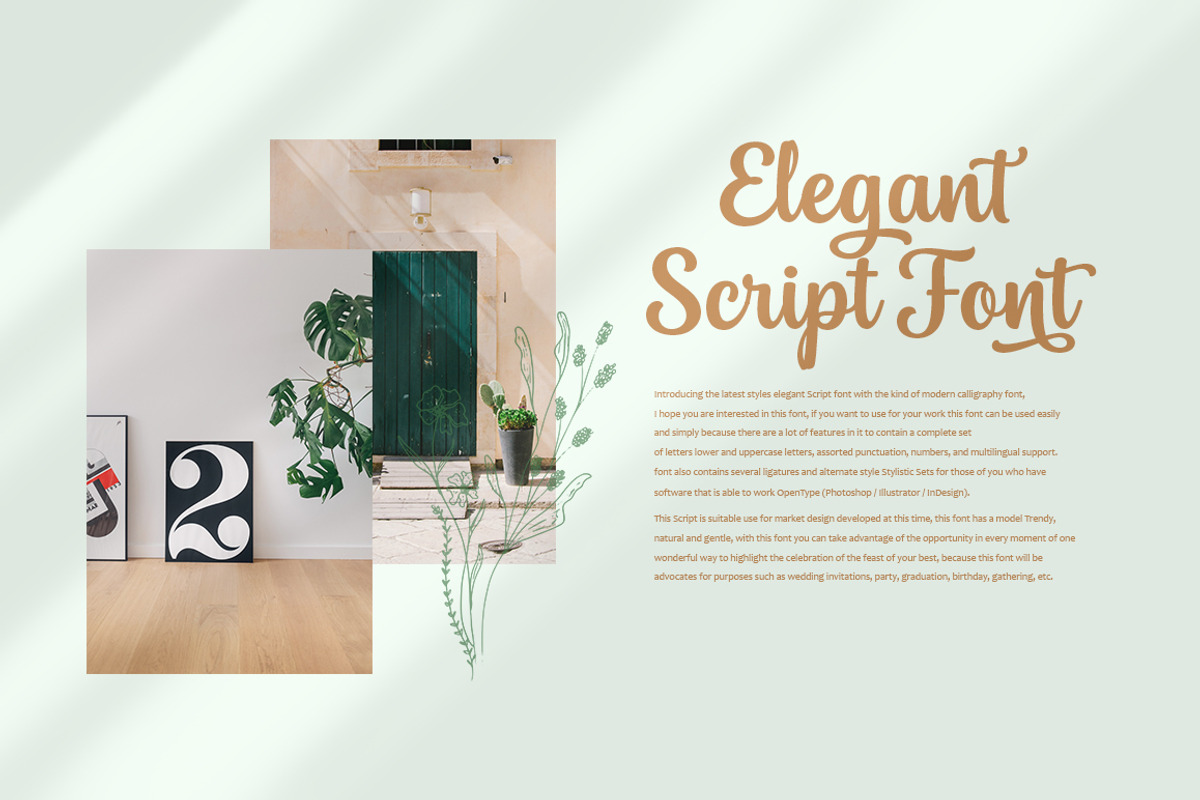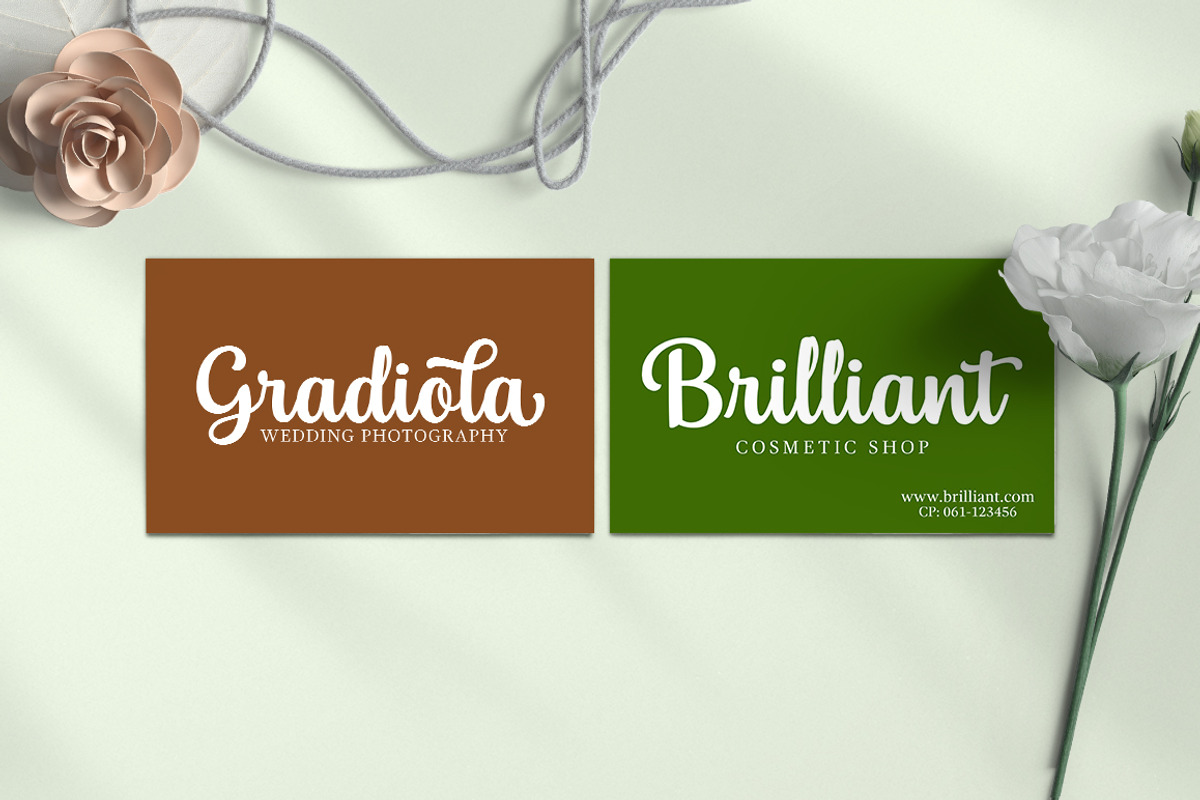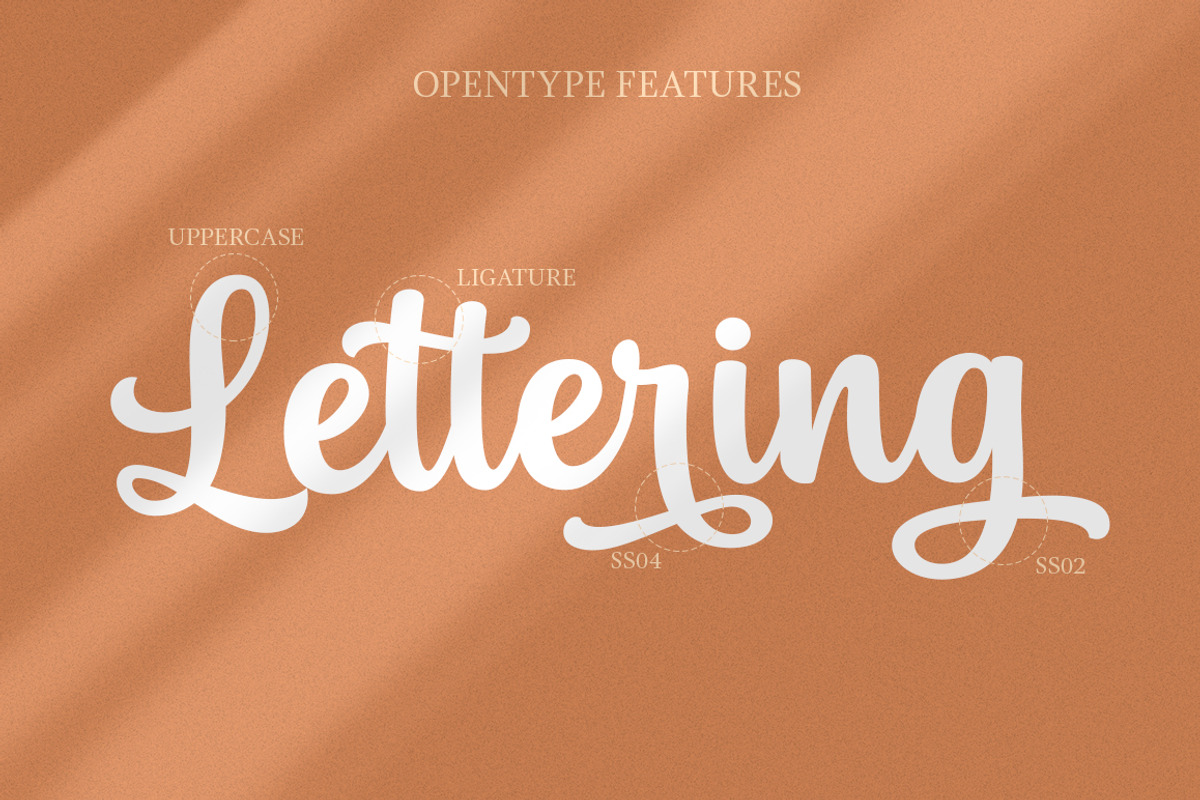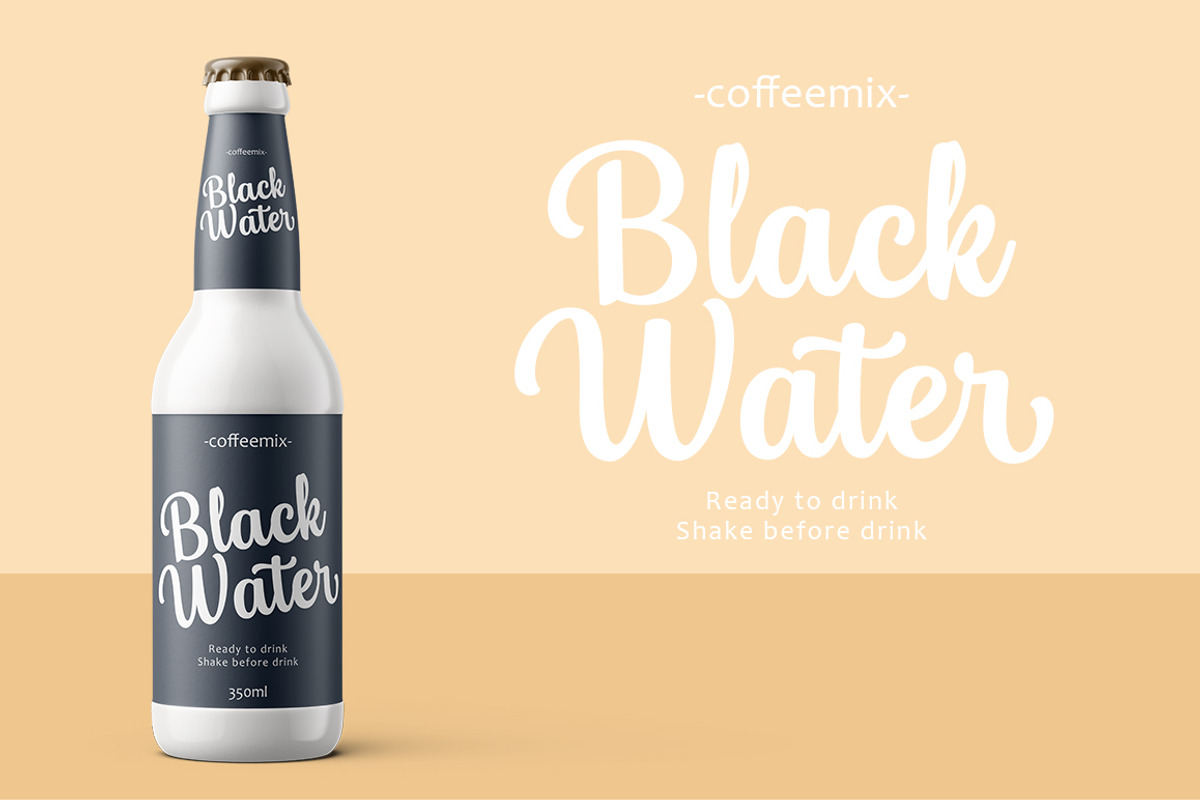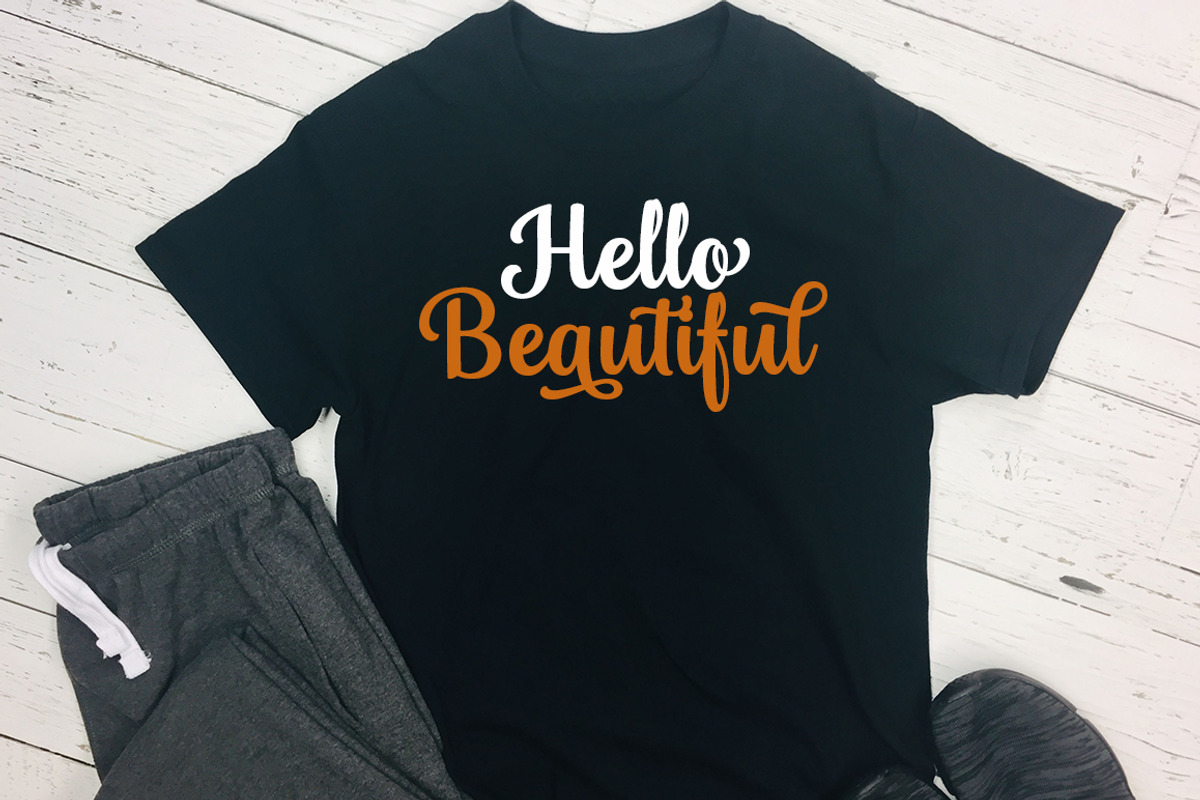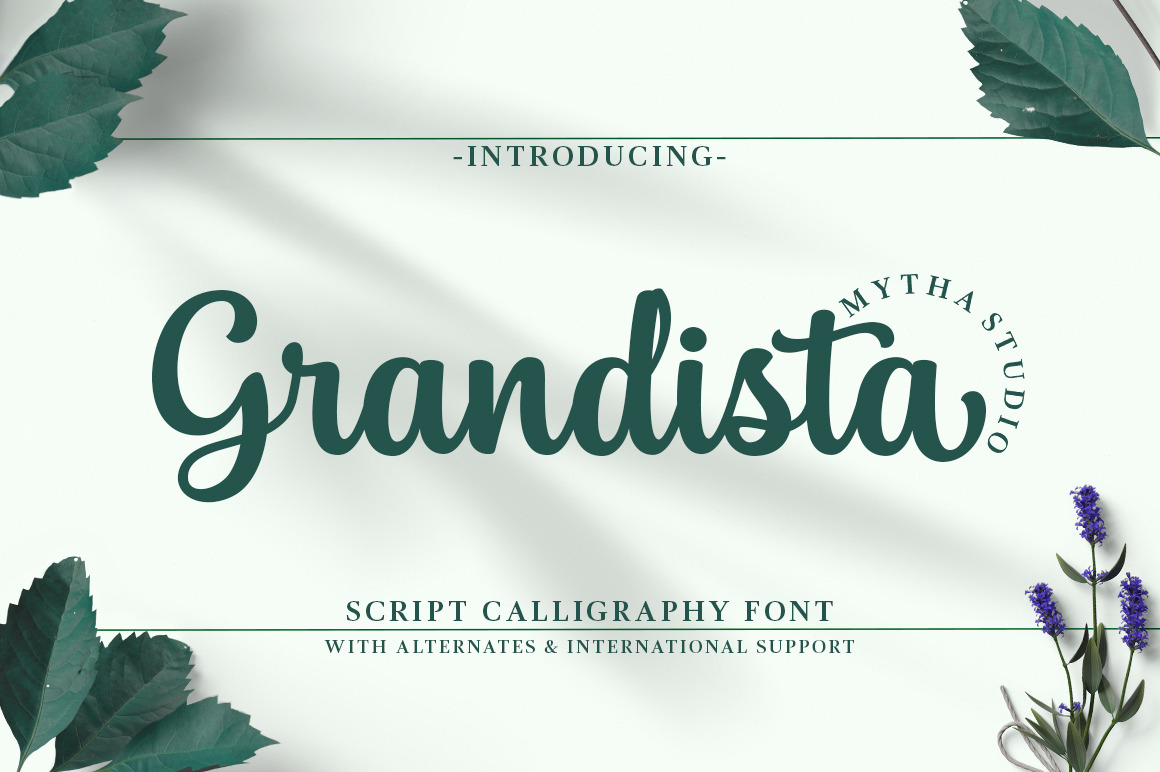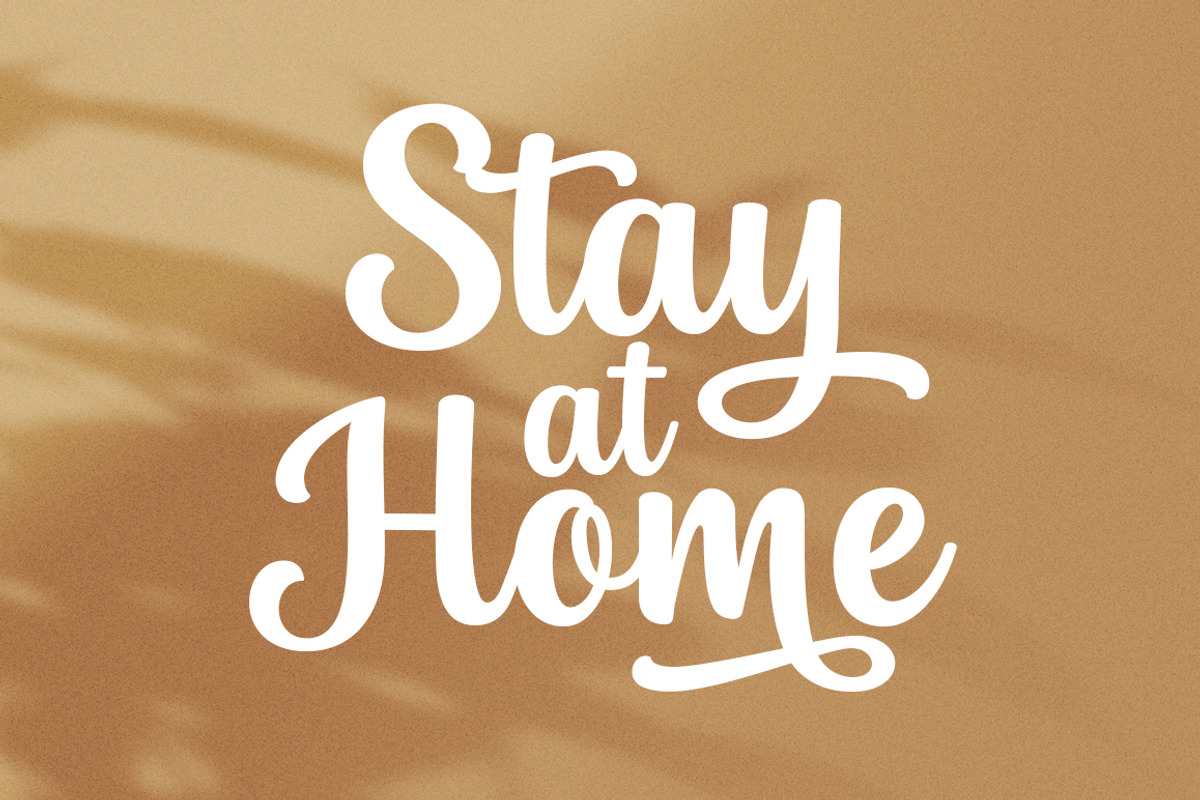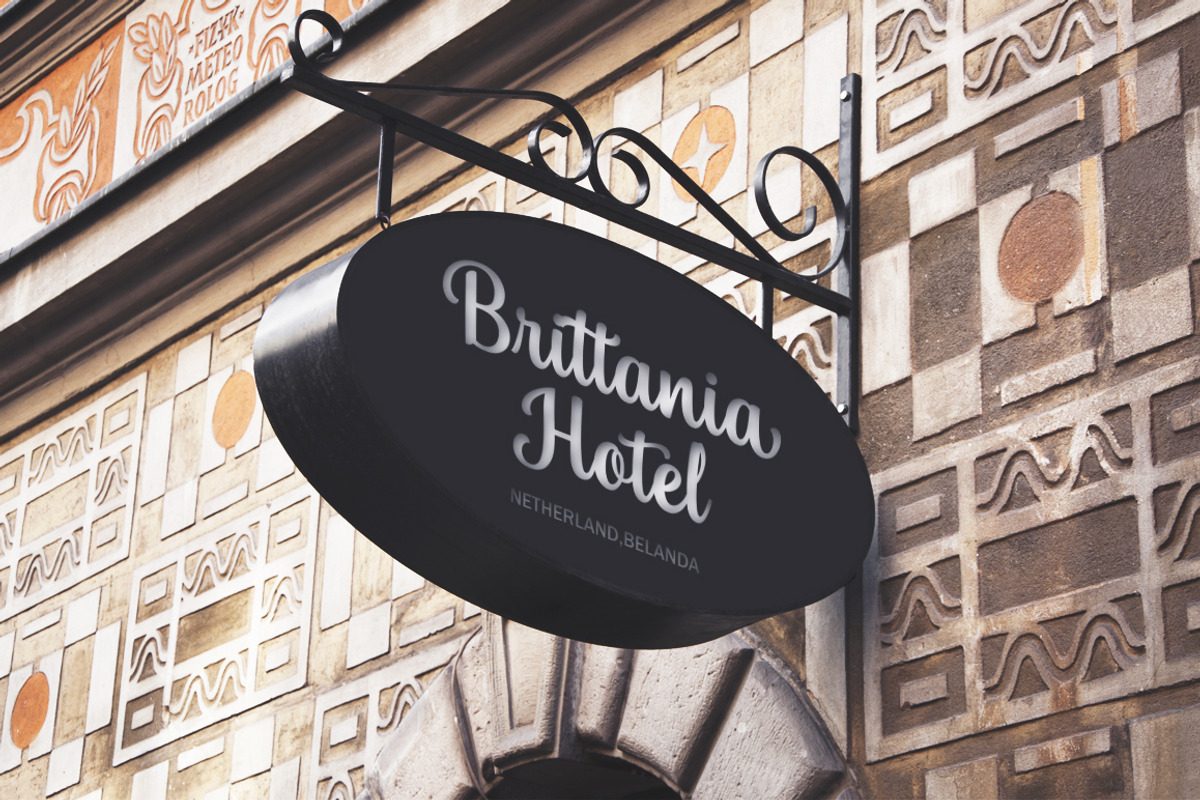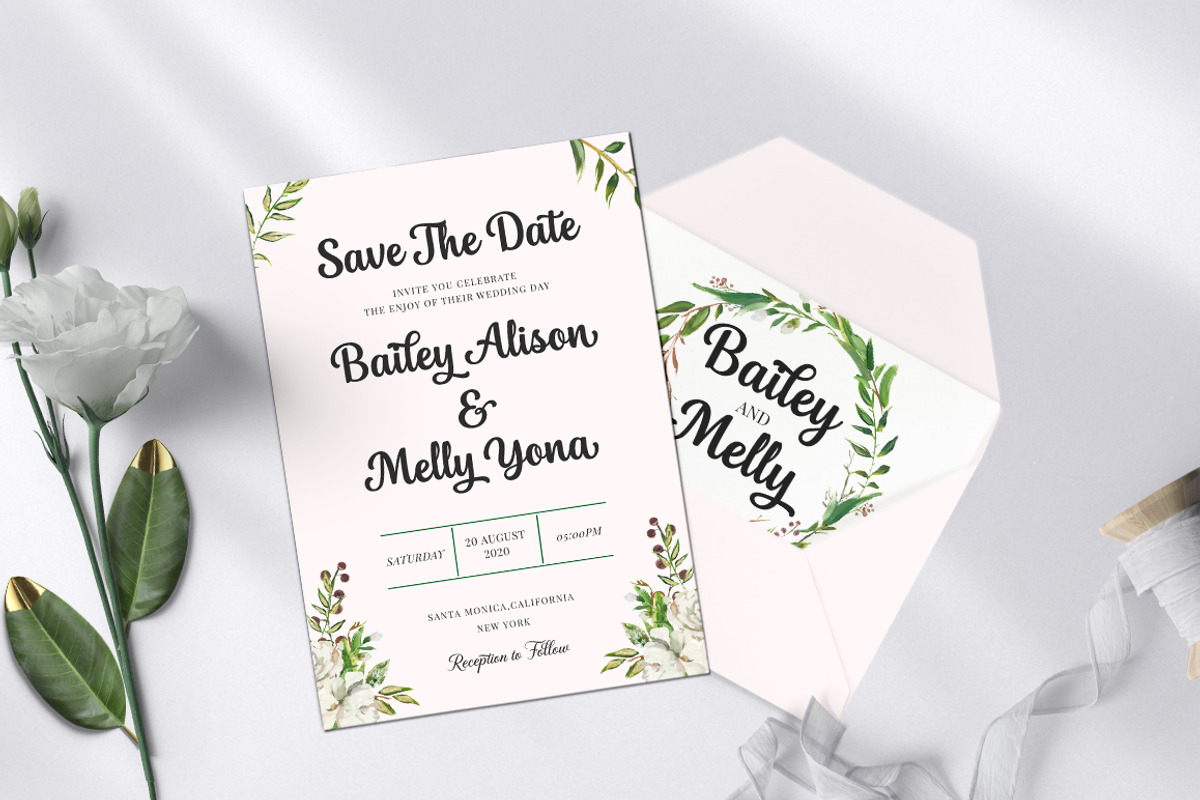
Grandista Font
Grandista font is a fresh modern script that is fresh and charming, created based on original handwriting, this font is perfect for the application you want the design to look original and full of personality logos, signature, logos, wedding invitation, t-shirt, letterhead, signage, labels, news, posters, badges, packaging, cards, titles, blogs, etc.
When it comes to OpenType features, Grandista Script has swash and alternatives, as well as several ligature to spur your creativity. This cute grandista font will surely attract attention and arouse excitement and pleasure in making your project.